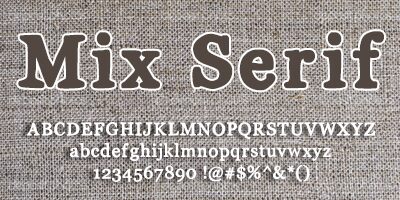
Mix Serif, crafted by Mix Fonts, is a distinct display font that captivates with its eroded serif aesthetic. This typeface exudes an alluring vintage-inspired charm, blending traditional serif elegance with a weathered, time-worn appearance. The Mix Serif's unique character shines through in its sturdy, yet subtly distressed letterforms, creating a visually striking and impactful typographic treatment.
The font's captivating style lends itself well to a range of design applications, from eye-catching headlines and titles to bold branding elements. Its versatility allows it to seamlessly integrate into various creative projects, from editorial layouts and packaging designs to signage and advertising campaigns, where it can add a distinctive, attention-grabbing touch.